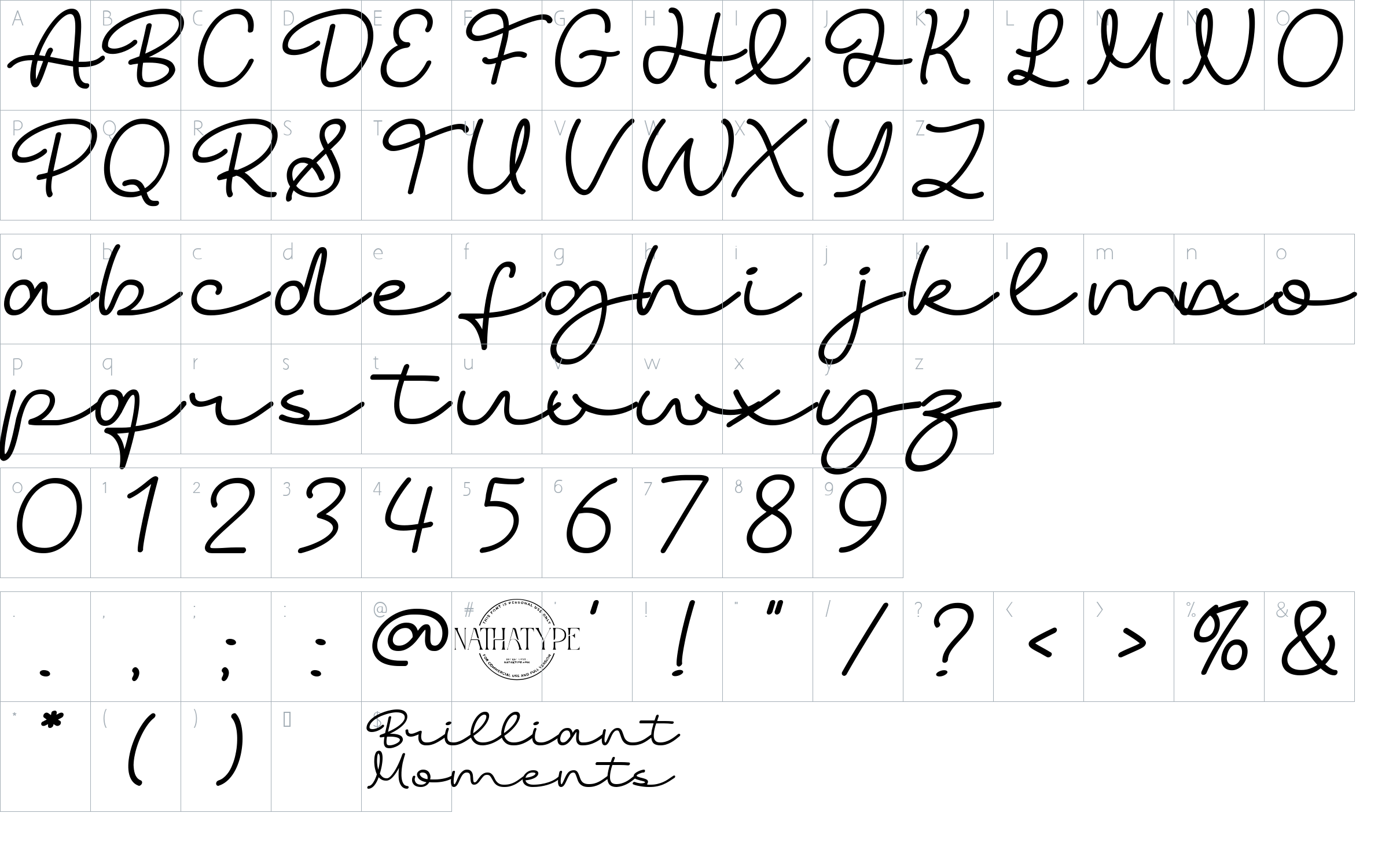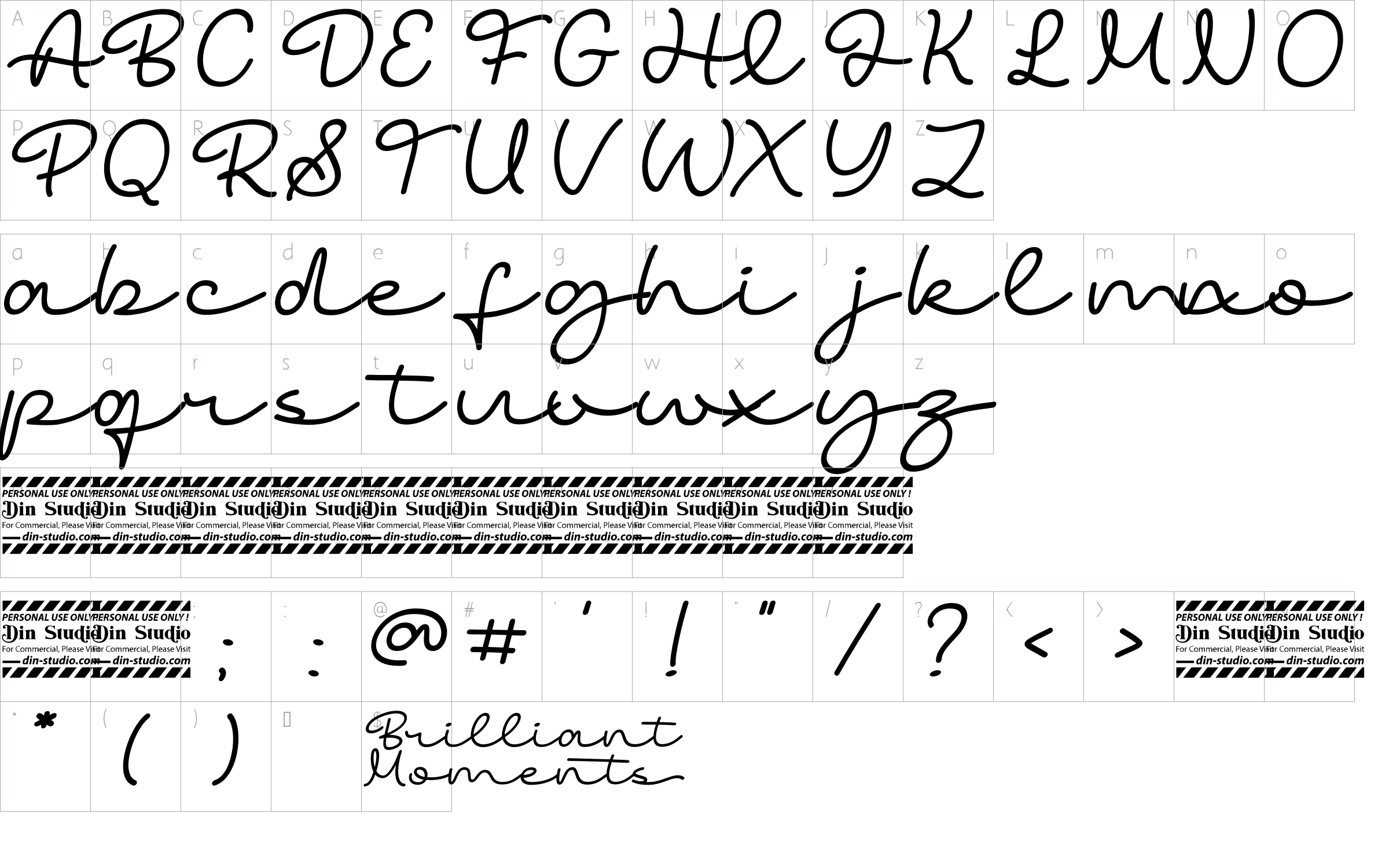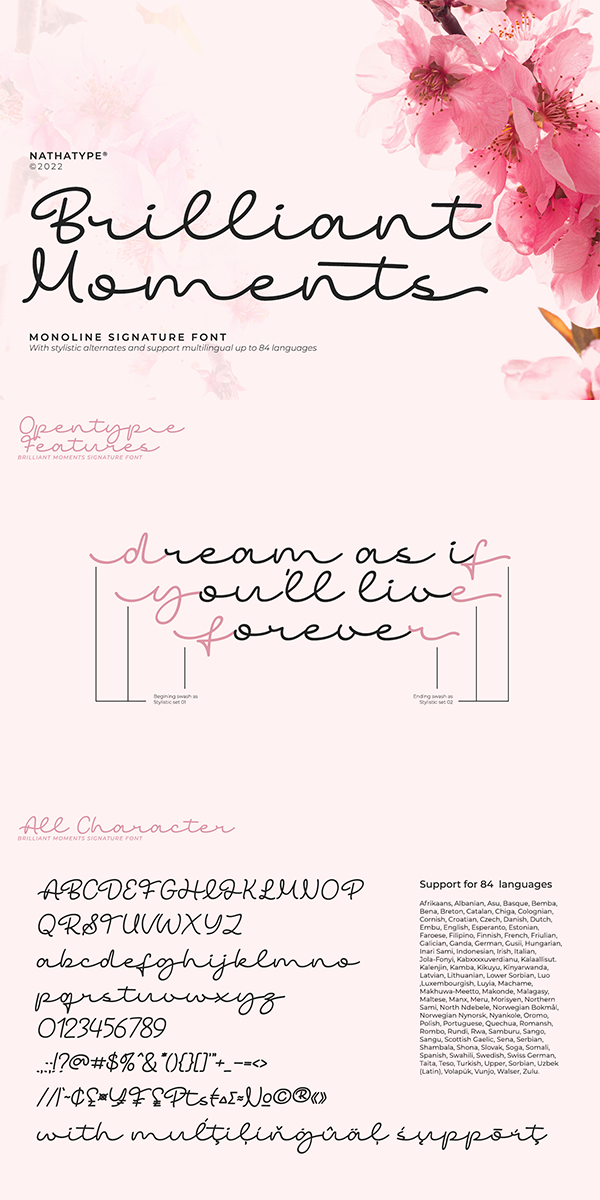
Brilliant Moments Font
About Brilliant Moments
Let’s steal the spotlight and create your bold statement design result with Brilliant Moments. It is a script font that is designed to resemble a signature by playing the curves and angles. Sure enough, this font projects stylish and elegant feel. It works equally good as well in header or as smaller text. Even more, it is also has fascinating features that helps you maximize your design.